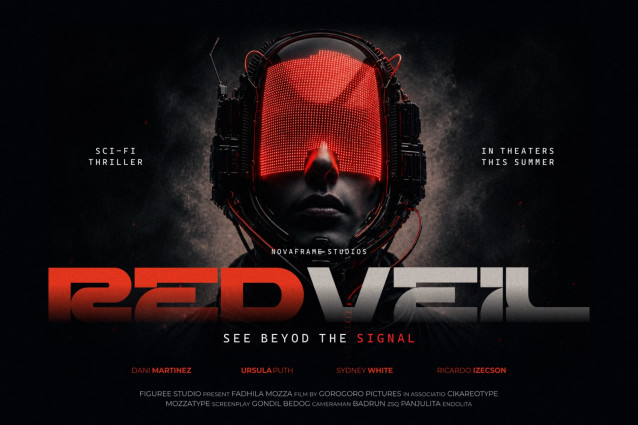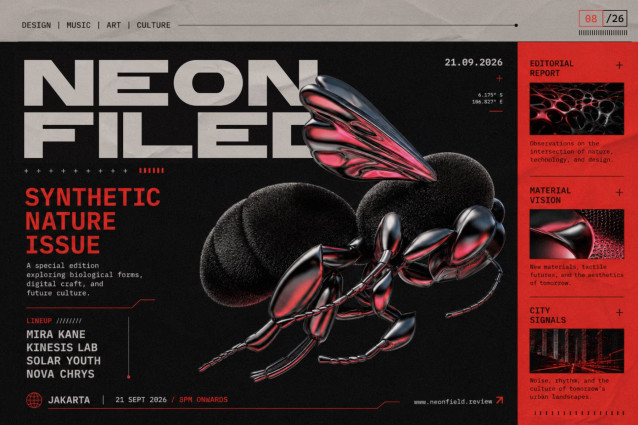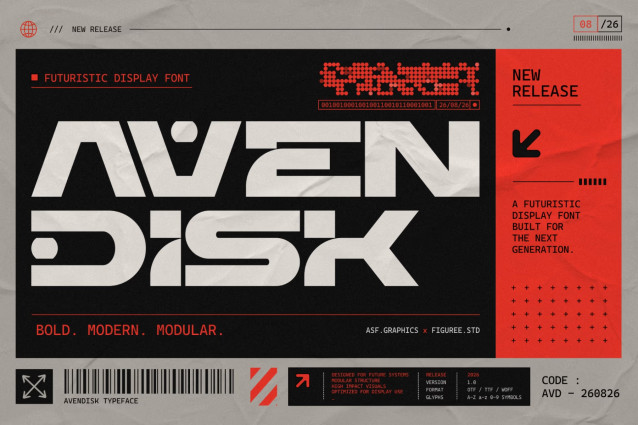
Avendisk Futuristic Display Font is created for visual projects that need a distinctive modern presence and a strong futuristic personality. Designed for graphic designers, brand creators, creative studios, and digital creators, Avendisk gives headlines and visual identities a contemporary direction that feels confident, progressive, and visually focused.
Its futuristic display style makes it especially suitable for projects where typography becomes an important part of the overall visual concept. Avendisk works naturally across branding, advertising, posters, digital graphics, campaign visuals, entertainment artwork, and headline-driven layouts.
The family includes both Avendisk and Avendisk Italic, giving designers two coordinated styles to explore. The regular version can establish a strong visual foundation, while the italic version can introduce movement, emphasis, and contrast within the same creative system.